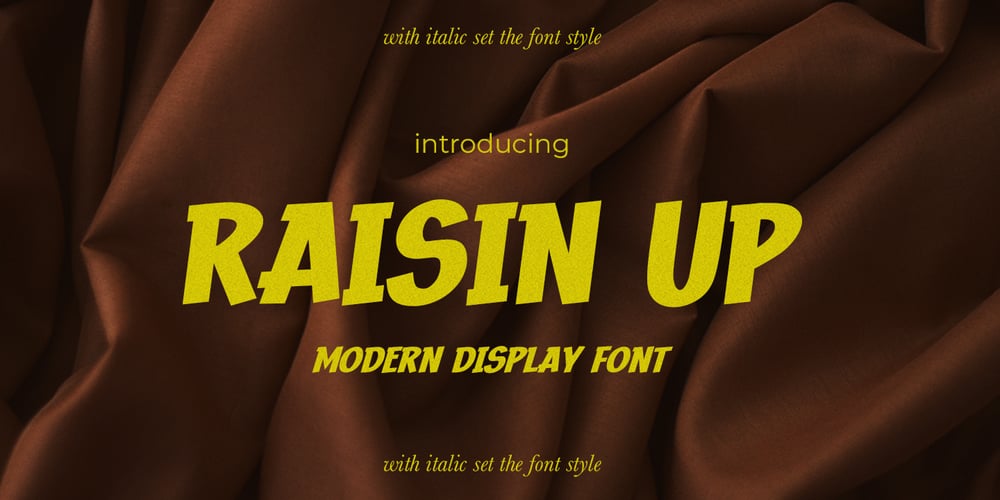
Raisin Up
Raisin Up font
Raisin Up Font Family was designed by Abdul Malik Wisnu, Anang Fibriyanto and published by Gassstype. Raisin Up contains 1 styles and family package options. Hello Everyone, introduce our new product Raisin Up is Modern Display Font with a natural feel. This handmade font will make your design has a beautiful natural touch for each details. Raisin Up with 2 stlye Raisin Up Regular and Raisin Up Italic Set.